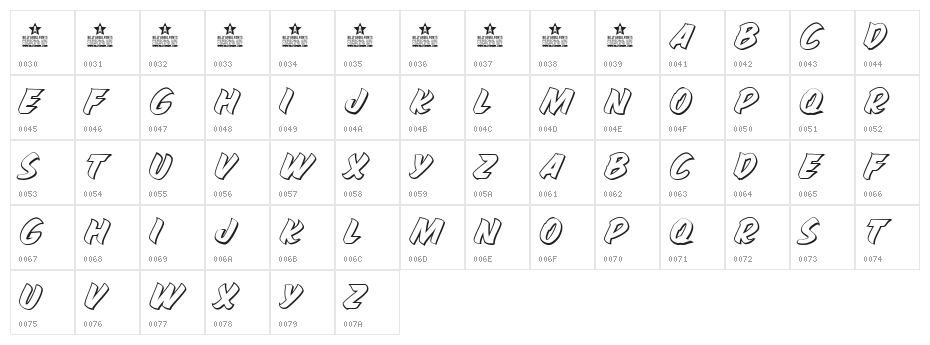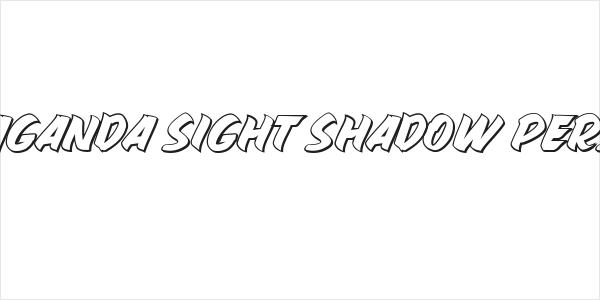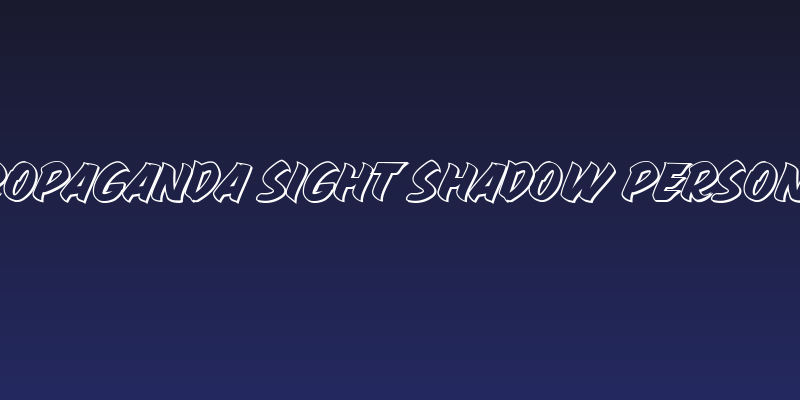
PROPAGANDA SIGHT SHADOW PERSONA Font
PROPAGANDA SIGHT SHADOW PERSONA Description
This font features bold, dynamic characters with a distinct shadow effect that gives a sense of depth and movement. The uppercase letters are designed with sharp angles and a slightly italicized slant, enhancing their energetic appearance. The shadowing is consistent across all characters, providing a cohesive look. The font's style is reminiscent of comic book lettering, making it ideal for projects that require a playful yet impactful visual presence. Its boldness ensures readability while the shadow adds a layer of visual interest.
| Proposed Projects | Ideal for comic books, posters, video game graphics, and eye-catching headlines. |